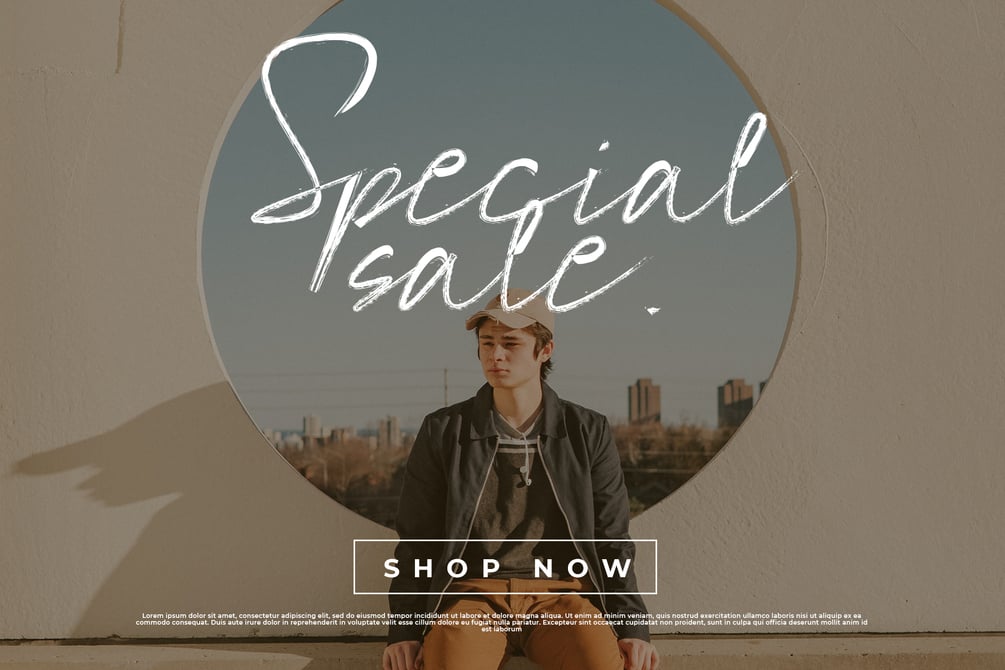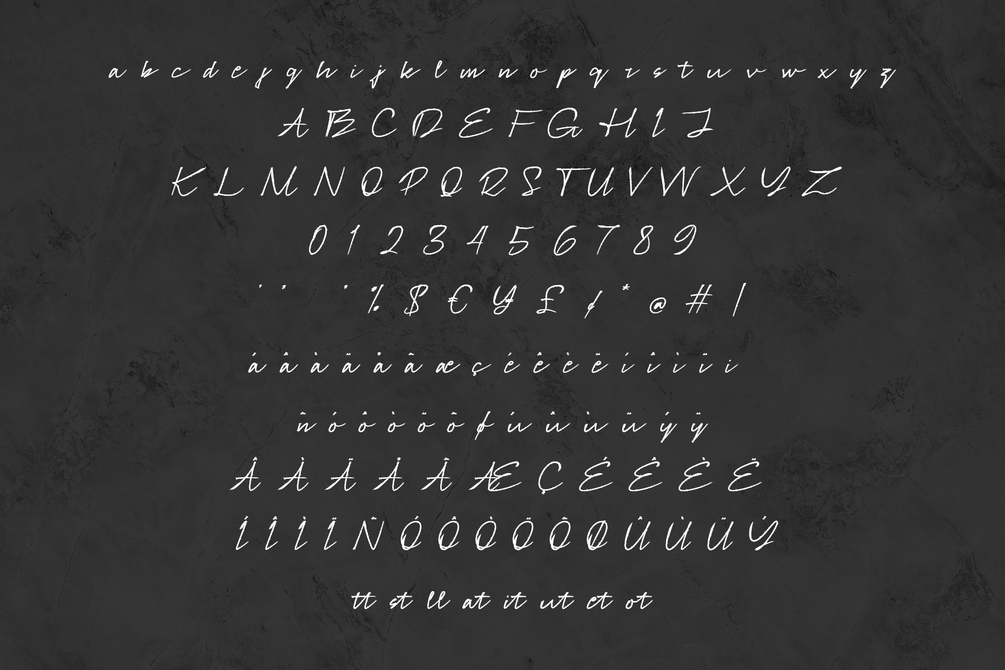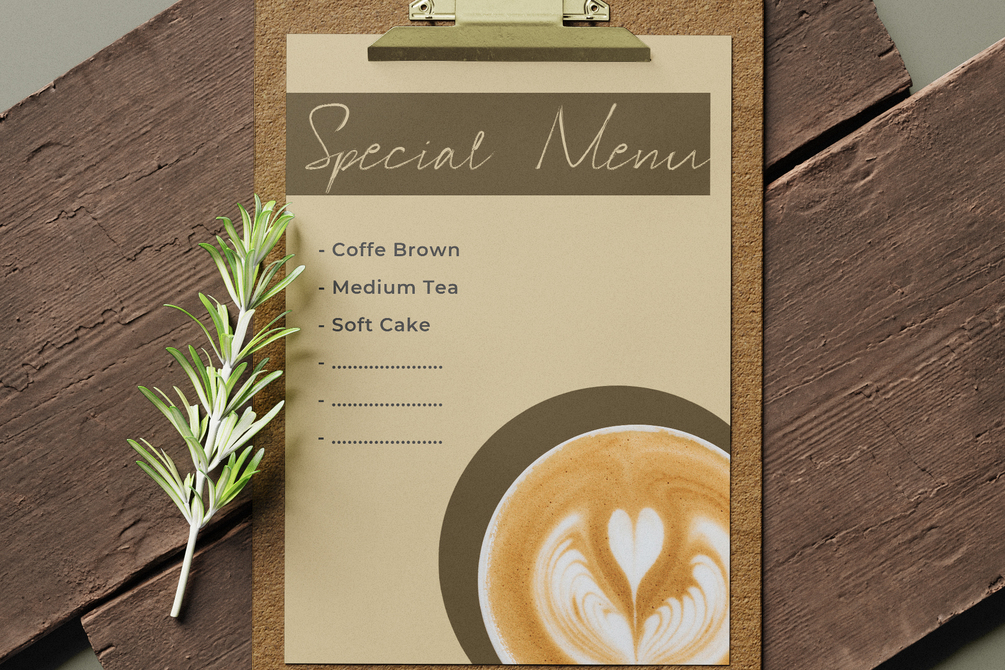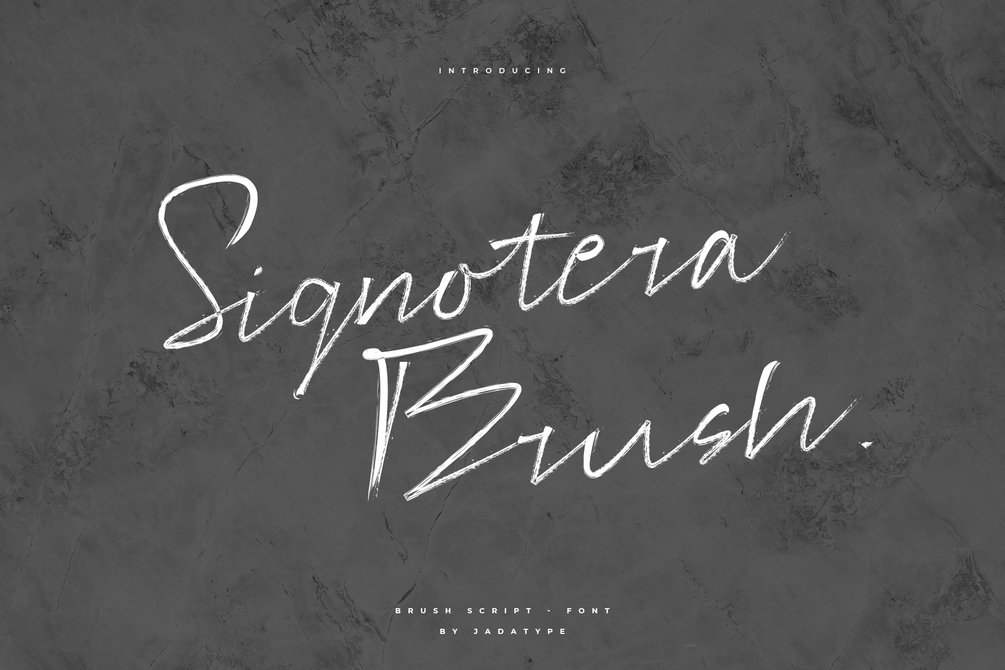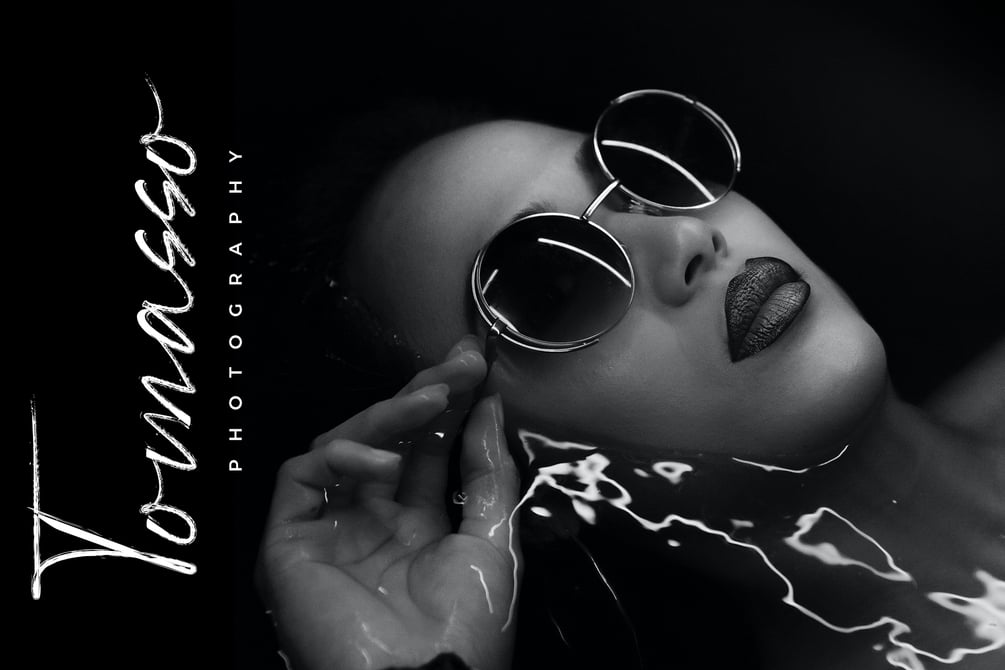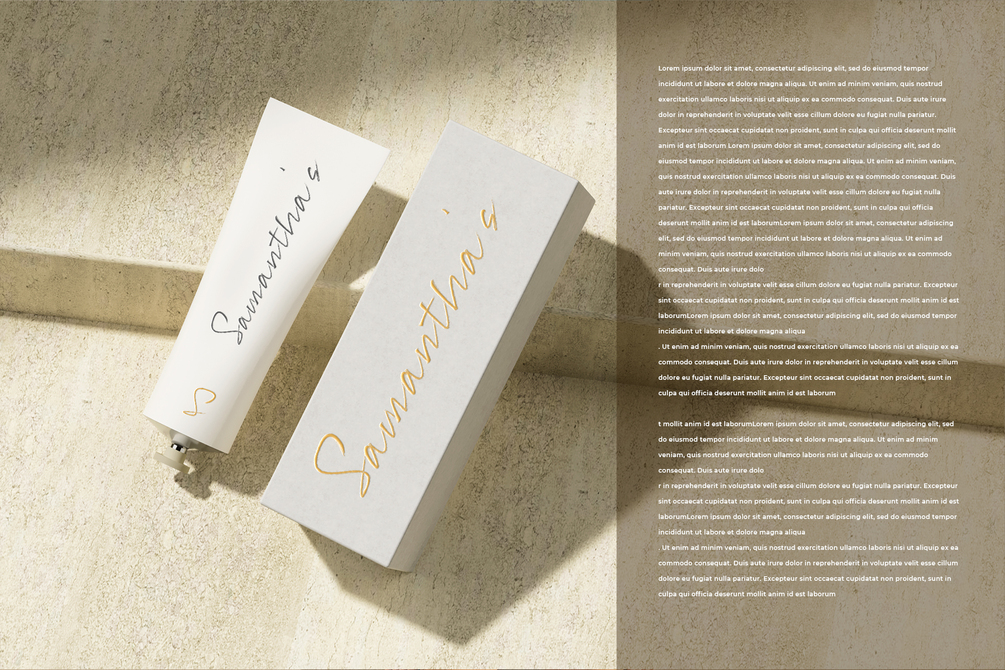
Signotera Brush Font
Signotera Brush is a font with a natural brush signature. suitable for advertisement, social media, invitation, branding, products, handwritten, and so on. contains standard English letters, numbers, punctuation, and several accents that support multilingualism.